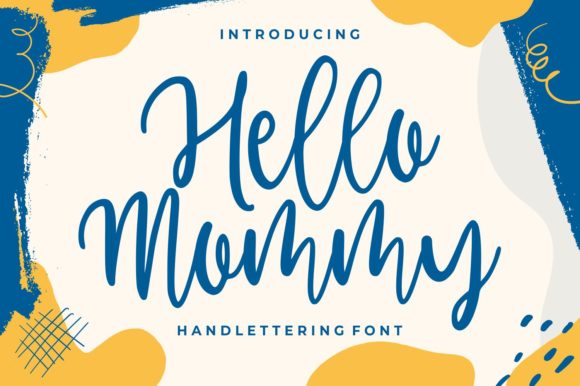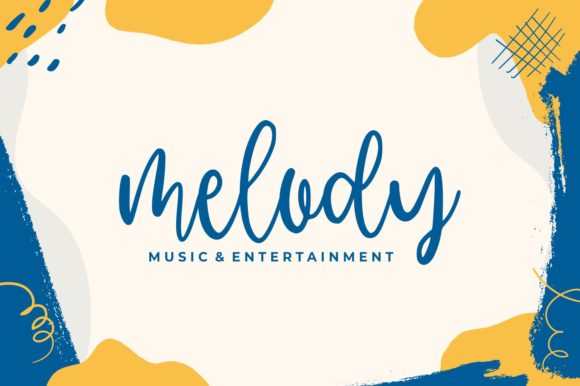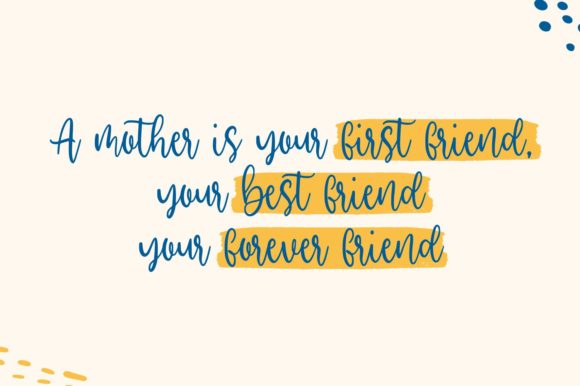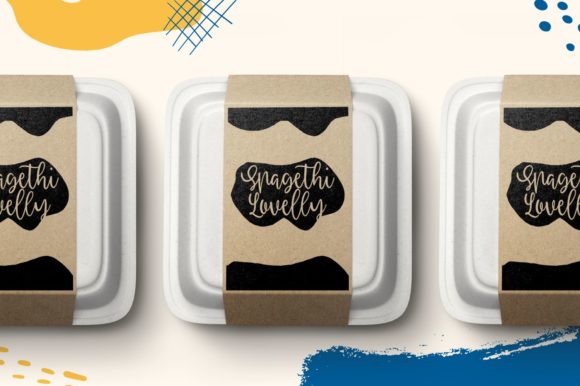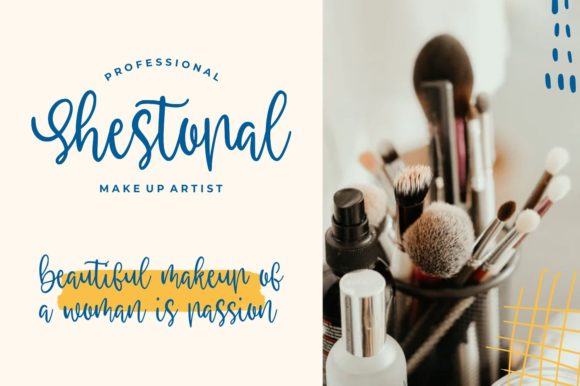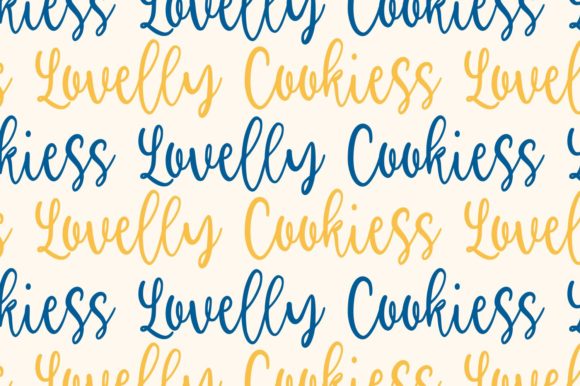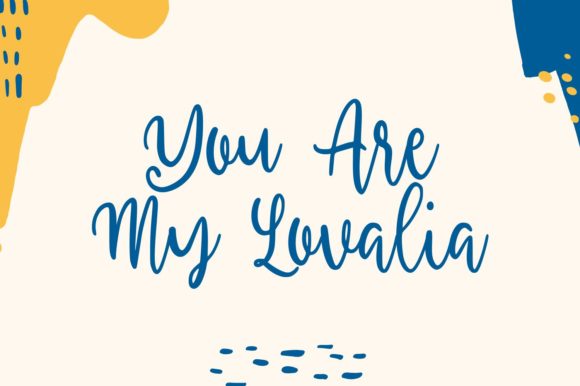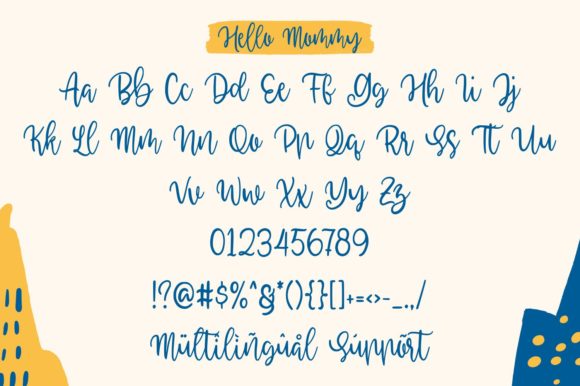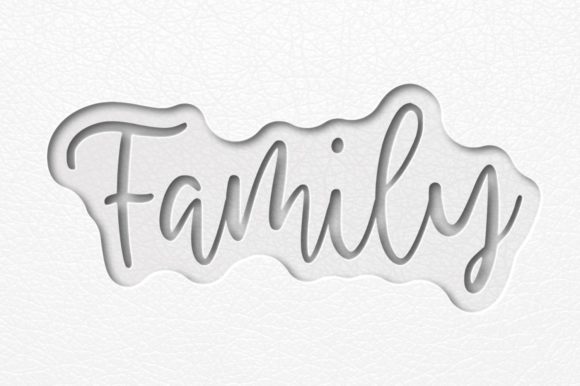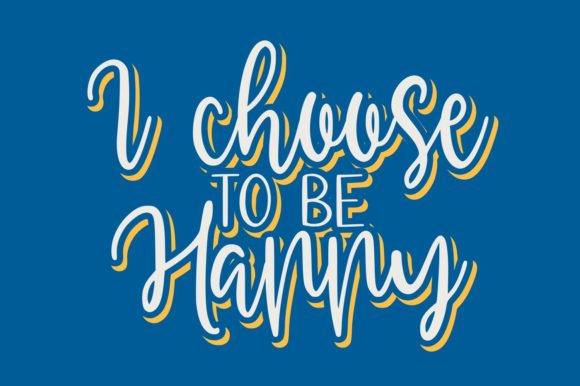
Hello Mommy Font
About Hello Mommy Font
Hello Mommy is a casual and cute handwritten font. It features an incredibly classic style, while still keeping a friendly feel. It will elevate a wide range of design projects to the highest level, be it branding, headings, wedding designs, invitations, signatures, logos, labels, and much more!